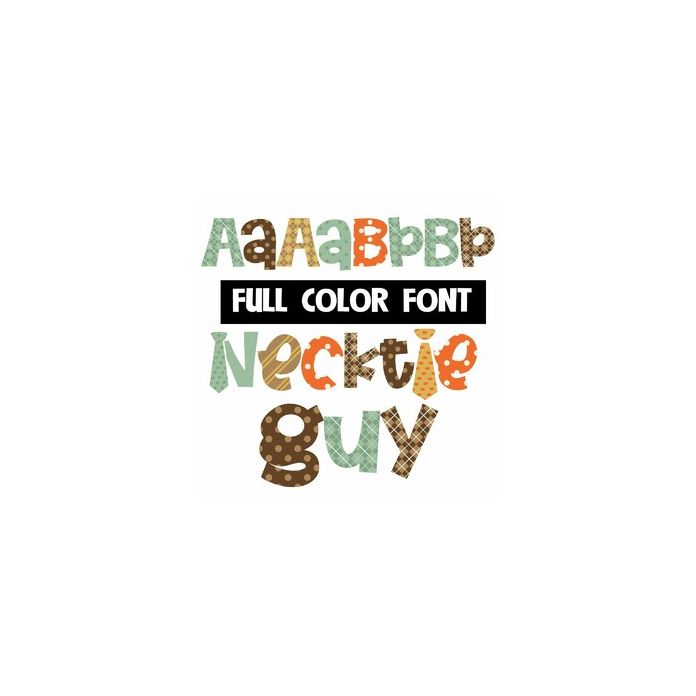
This full-color font features necktie prints a few necktie letter substitutes. There is an alt upper and lowerase of a different color you can access through your system's glyph map.